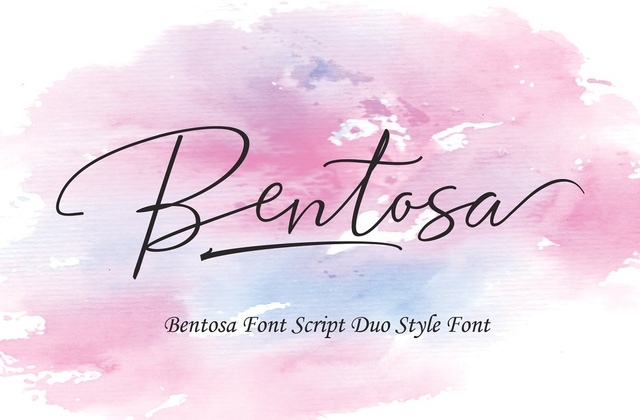
Bentosa Script Font
The Bentosa Script Font is a stunning and elegant typeface that features a beautiful, flowing handwritten style. Its clean lines and natural curves make it a perfect choice for a wide variety of sophisticated design projects, including wedding invitations, high-end branding, and personal stationery. This font is also excellent for creating captivating social media graphics, product packaging, and greeting cards where you want to add a unique, personal touch. The Bentosa Script Font’s authentic and graceful style ensures that your message is delivered with a sense of warmth and intimacy.
What makes the Bentosa Script Font so exciting is its effortless elegance and handcrafted feel. Each character is designed to connect seamlessly, creating a genuinely handwritten look that is both beautiful and highly legible. It has a beautiful, free-spirited vibe that can make your designs feel both personal and professional. Unlike a rigid script, its natural variation and gentle curves give it a unique personality, ensuring your design stands out with a feeling of genuine artistry.
The Bentosa font family is designed for maximum versatility. It includes a full set of uppercase and lowercase letters, numerals, punctuation, and multilingual symbols. This extensive character set gives you everything you need to create a cohesive and professional look across all your design projects. The font also includes stylistic alternates and ligatures, allowing you to customize your text and enhance its handwritten appearance.